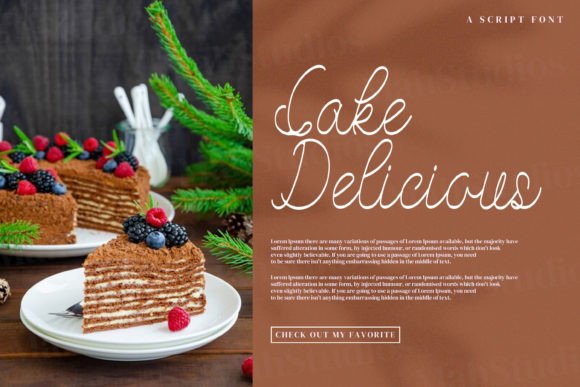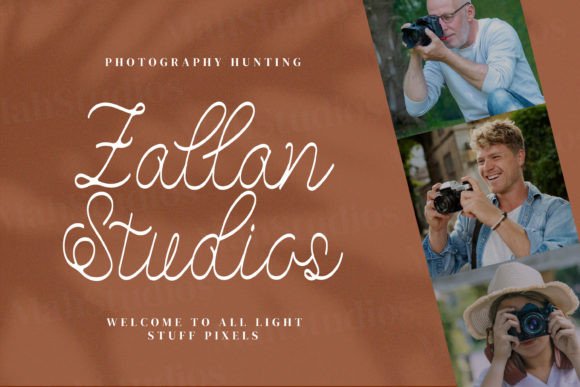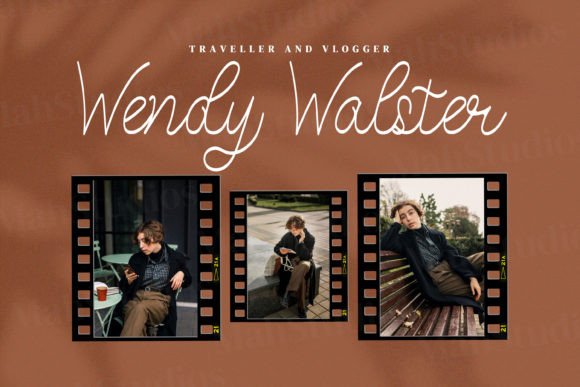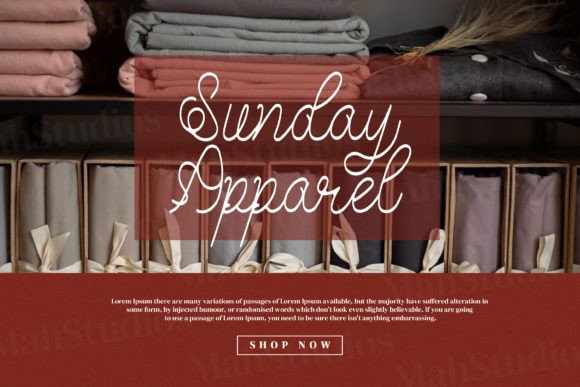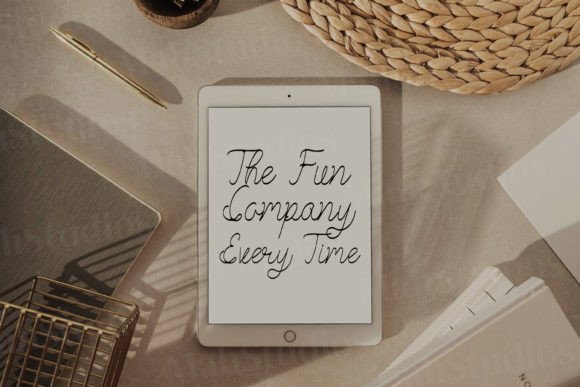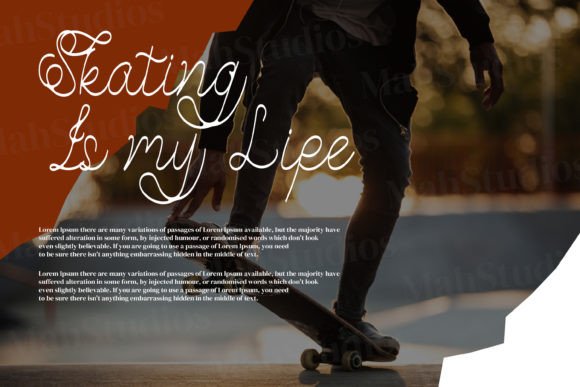
Grolly Font: Elevate Your Designs with Elegance and Sophistication
Are you a designer or crafter looking for a font that exudes style, elegance, and sophistication? Look no further than the Grolly Font! This stunning script font is designed to add a touch of luxury and refinement to any project, making it perfect for invitations, logos, and other special designs.
What is Grolly Font?
Grolly Font is a beautiful script font that features cute and graceful curves, giving it a modern and sophisticated look. The font’s unique design makes it stand out from other script fonts, with a distinctive flair that adds a touch of elegance to any text. Whether you’re designing an invitation, creating a logo, or working on a craft project, Grolly Font is the perfect choice.
Key Features of Grolly Font
- Stylish and Exquisite Design: Grolly Font features a stylish and exquisite design that is sure to impress. The font’s curves and lines are carefully crafted to create a sophisticated look that is perfect for high-end designs.
- Cute and Graceful Curves: The font’s curves are cute and graceful, adding a touch of whimsy and playfulness to any design.
- Modern and Sophisticated Look: Grolly Font has a modern and sophisticated look that is perfect for designers and crafters who want to create high-end designs.
- Perfect for Invitations and Logos: The font is perfect for invitations, logos, and other special projects that require a touch of elegance and sophistication.
Why Choose Grolly Font?
There are many reasons why designers and crafters choose Grolly Font for their projects. Here are just a few:
- Unique Design: Grolly Font has a unique design that sets it apart from other script fonts. Its distinctive curves and lines make it a standout choice for designers who want to create something special.
- Versatility: The font is versatile and can be used for a wide range of projects, from invitations and logos to craft projects and more.
- High-Quality Design: The font is designed to high standards, ensuring that it looks great in any design.
Tips and Tricks for Using Grolly Font
Here are some tips and tricks for using Grolly Font:
- Use it for Headings: Grolly Font is perfect for headings and titles, adding a touch of elegance and sophistication to any design.
- Pair it with Other Fonts: Pair Grolly Font with other fonts to create a unique and interesting design.
- Use it for Special Projects: Use Grolly Font for special projects, such as invitations, logos, and craft projects, to add a touch of luxury and refinement.
In conclusion, Grolly Font is a stunning script font that is perfect for designers and crafters who want to add a touch of elegance and sophistication to their projects. With its unique design, versatility, and ease of use, Grolly Font is a great choice for anyone looking to create high-end designs. So why wait? Download Grolly Font today and start creating beautiful designs that will impress and inspire!